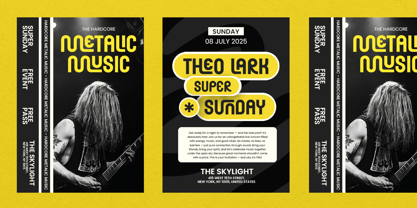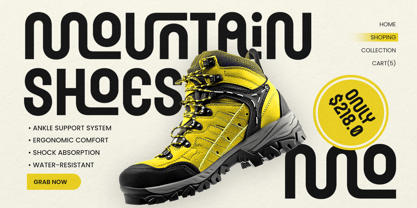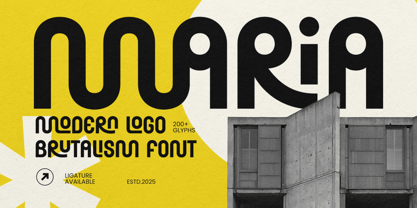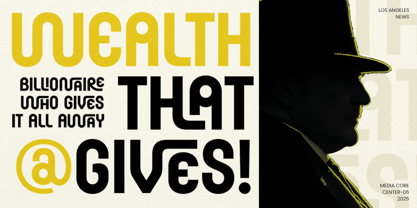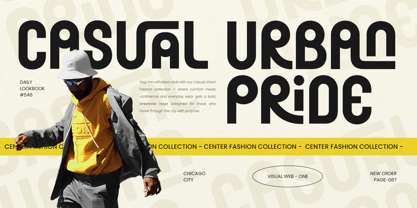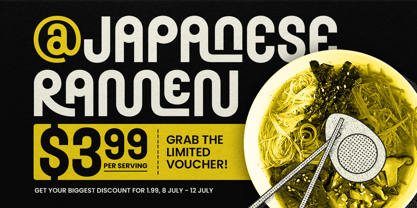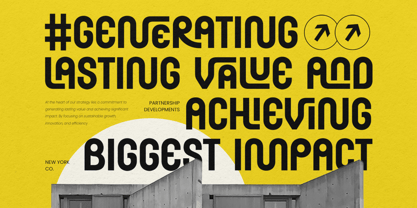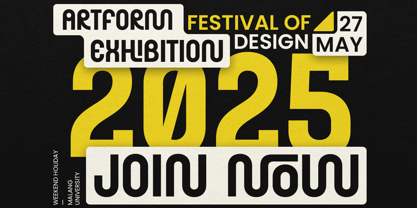
MARIA is a modern logo brutalism font crafted for those looking to make a bold and distinctive statement in branding. With its strong, industrial-inspired letterforms and extra ligatures for added uniqueness, MARIA ensures your design stands out from the crowd.
Influenced by brutalist design principles, MARIA combines raw strength with modern minimalism, offering a geometric and edgy structure that’s perfect for high-impact logos and branding. The inclusion of extra ligatures adds a unique touch, giving each design its own character and personality, perfect for those seeking something unconventional and memorable.
MARIA – Modern Logo Brutalism Font Features
Bold, geometric letterforms with a brutalist aesthetic
Unique ligatures for added originality and creative flexibility
Perfect for logos, branding, and high-impact visual identities
Includes uppercase, lowercase, numerals, and punctuation
Strong, edgy, and contemporary design
OpenType features for advanced typographic flexibility
Create a lasting, powerful impression with the ultimate font for modern, brutalist logo design with unique ligatures. 💥🔲